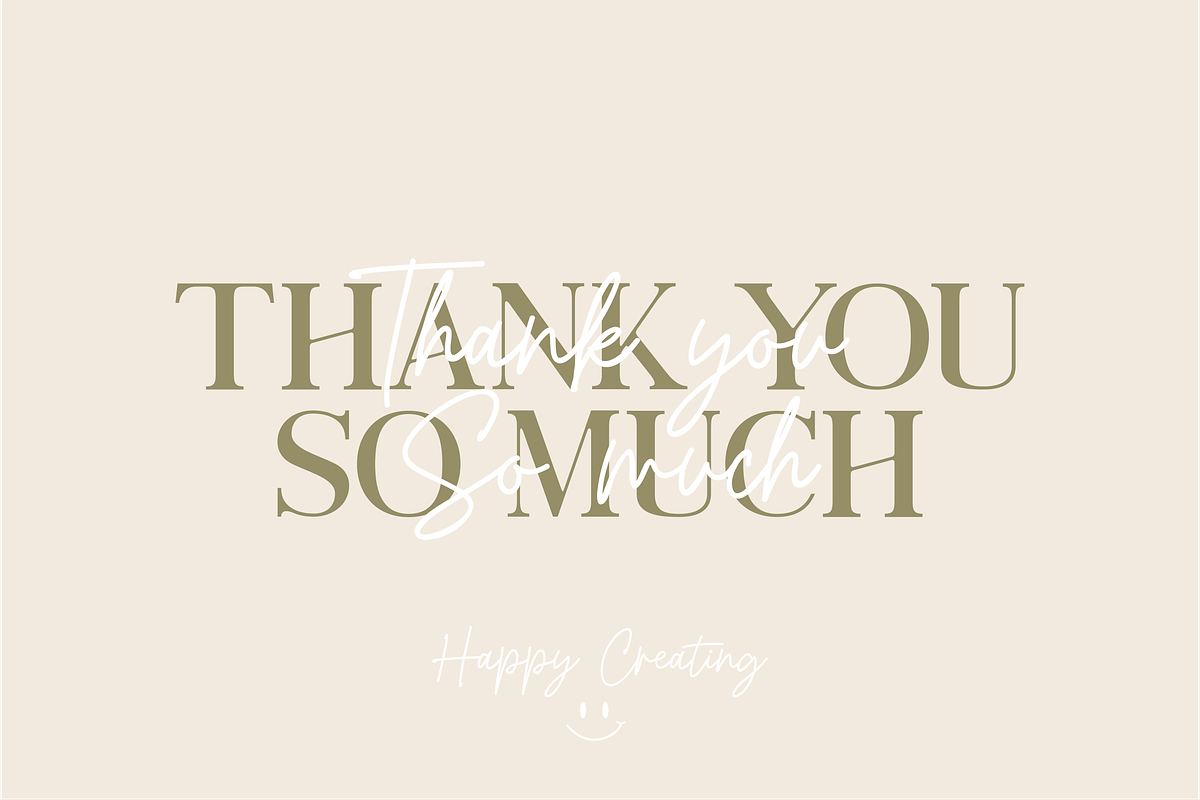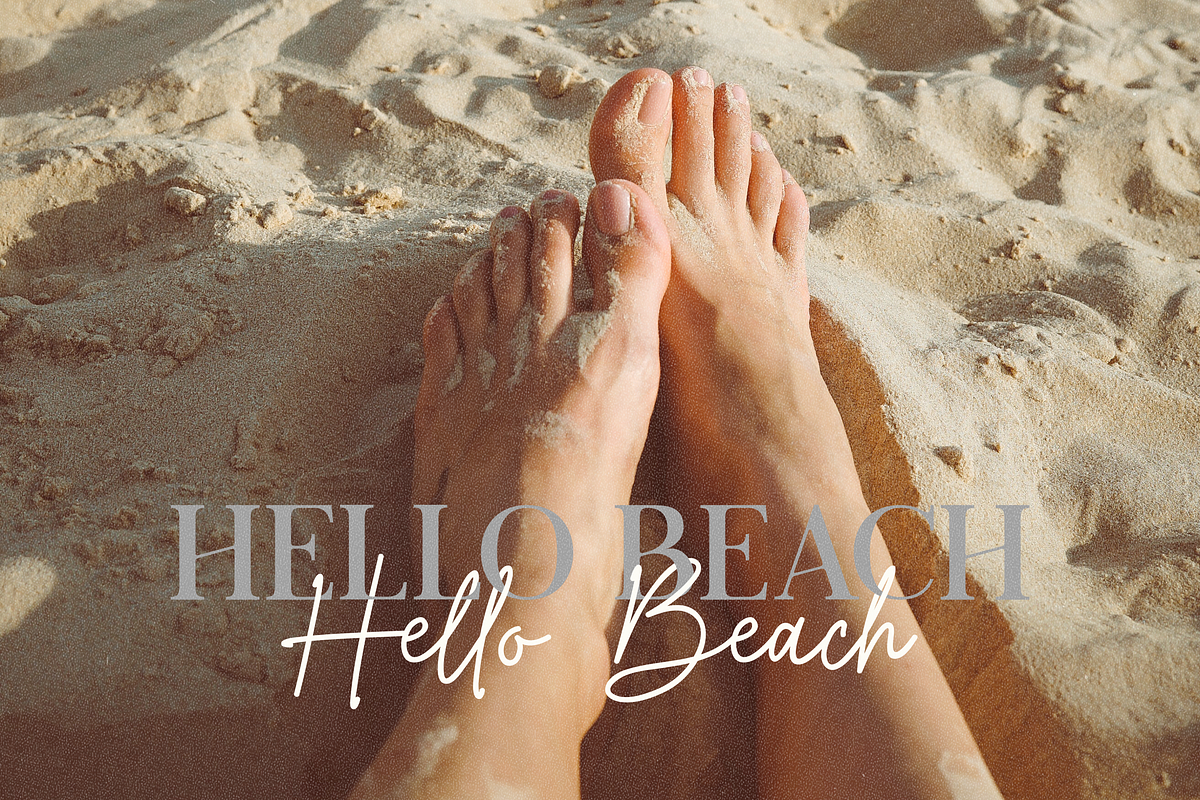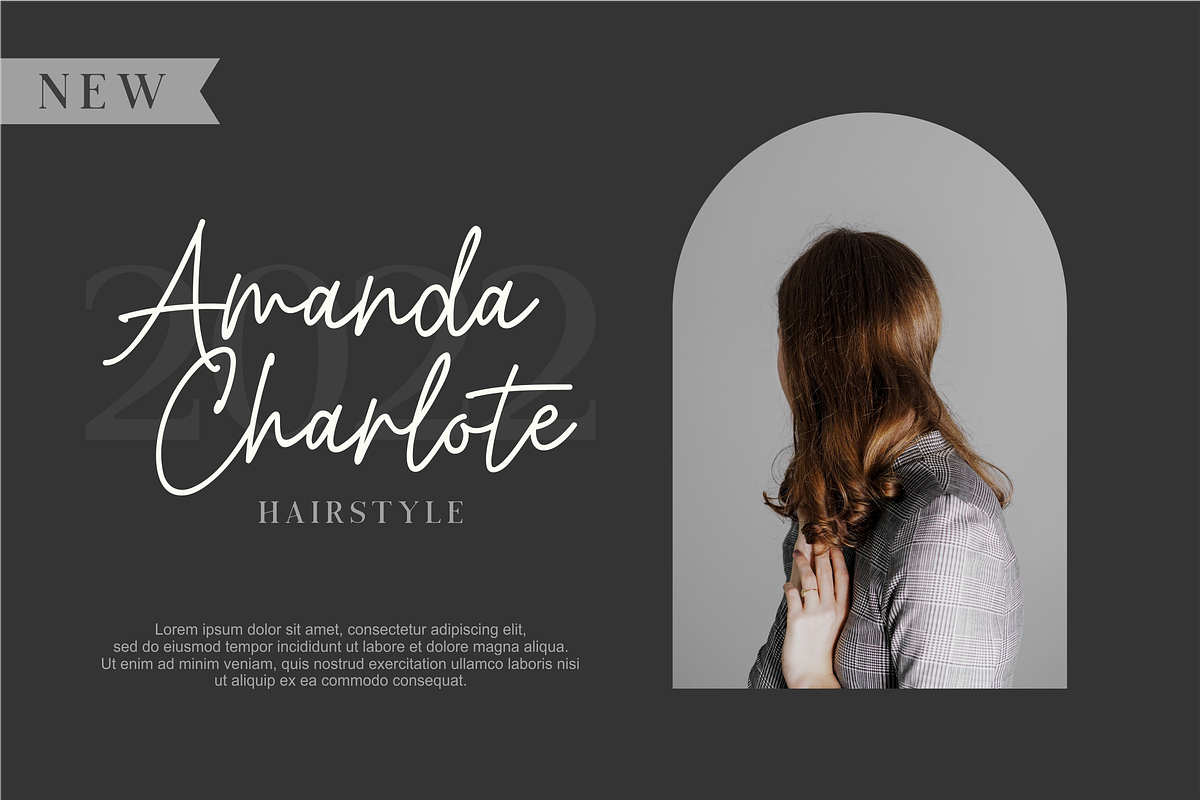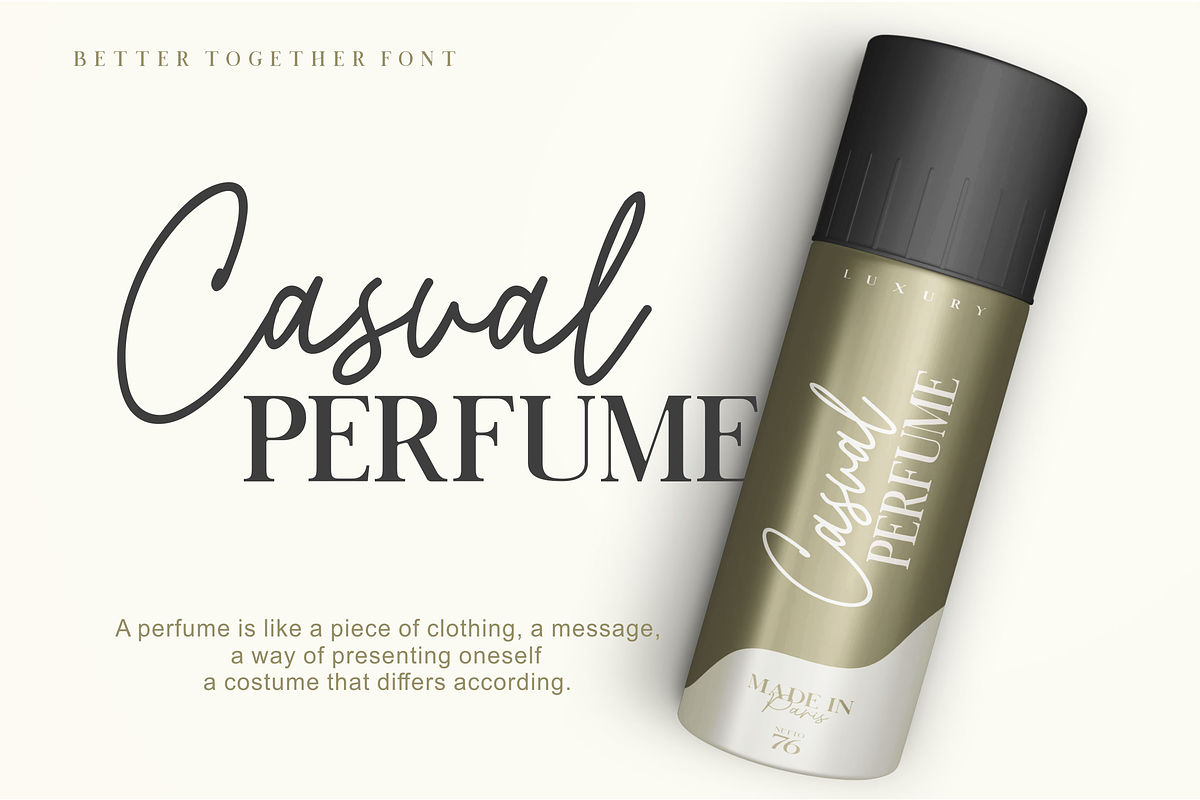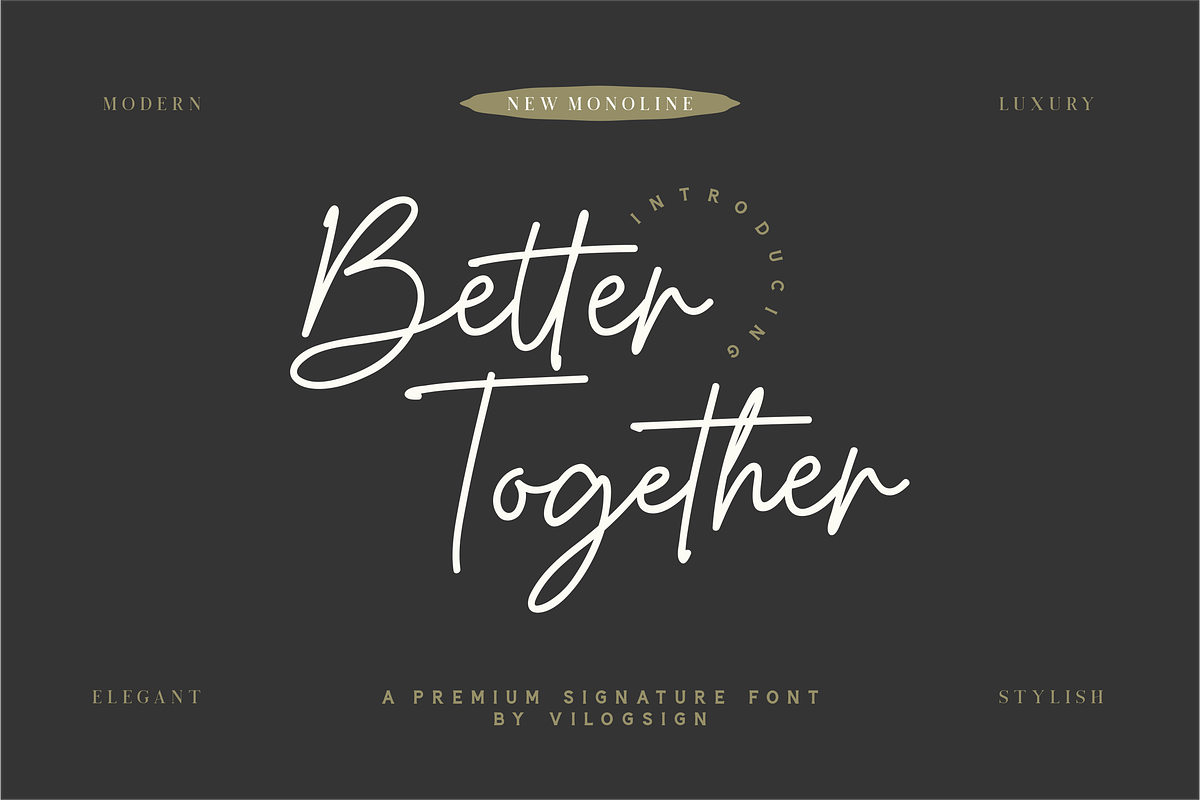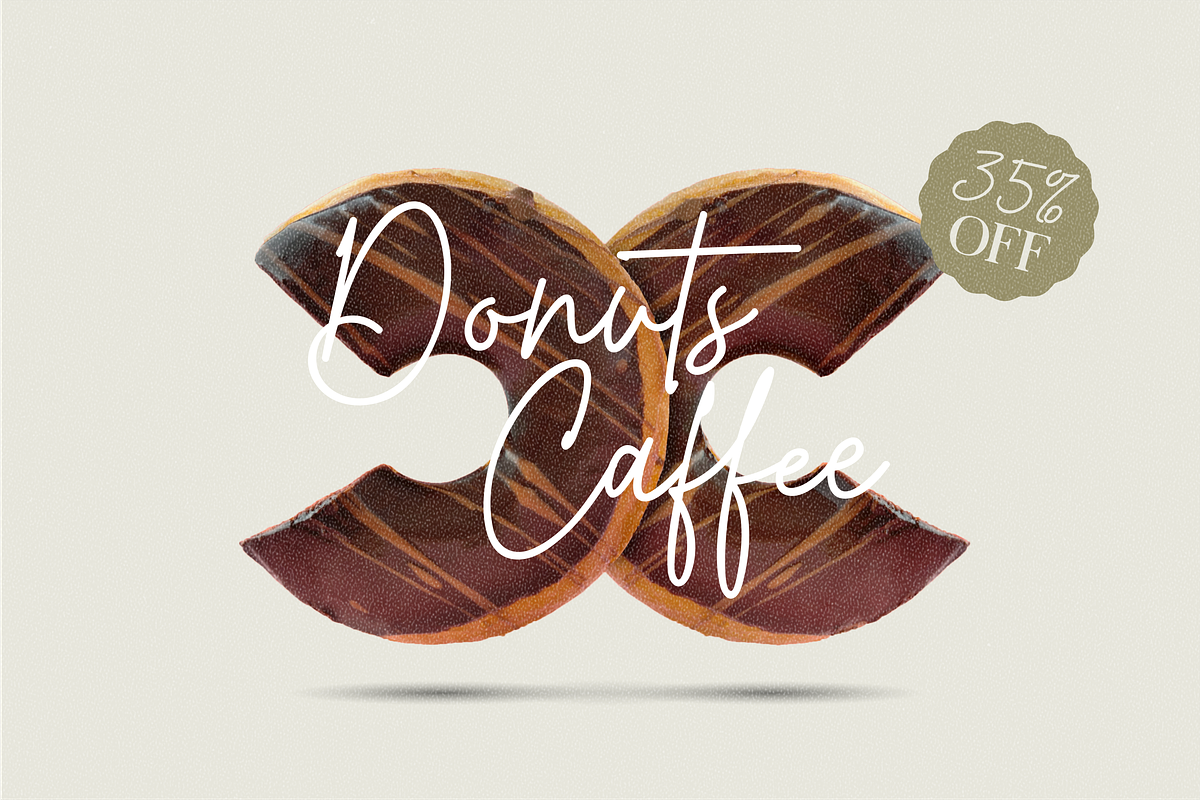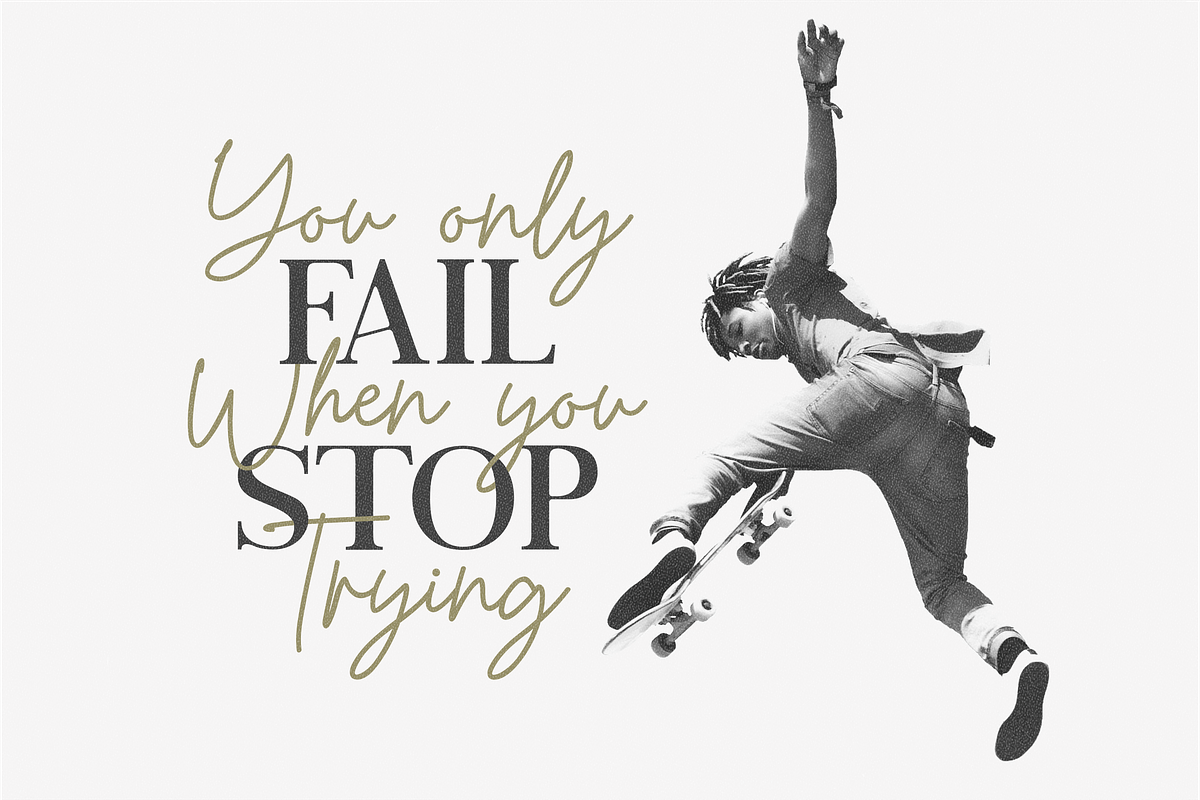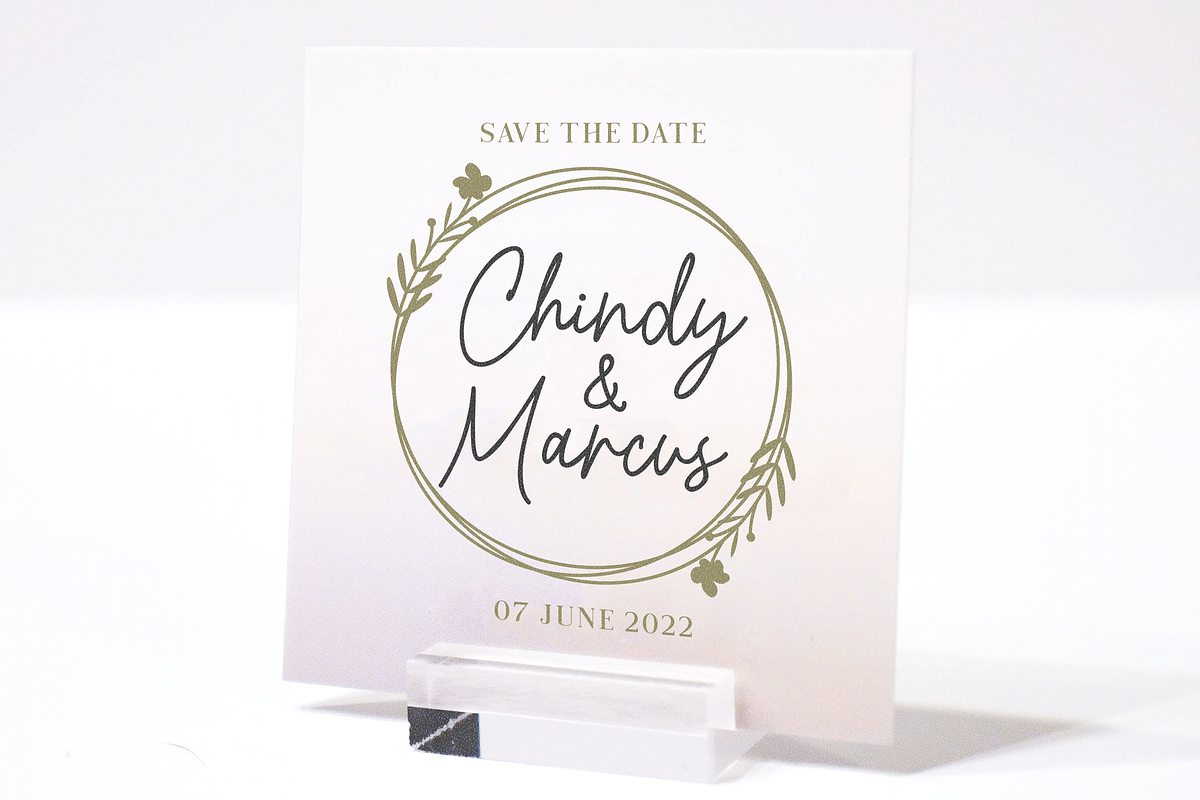
Better Together a Monoline Signature
Hi,,, Introducing "Better Together" a Modern Monoline Script Font!!!
Better Together font is a monoline script with a touch of modern look and feel. This type of font perfectly made to be applied especially in Branding, and the other various formal forms such as invitations, labels, logos, magazines, books, greeting / wedding cards, packaging, fashion, make up, stationery, novels, labels or any type of advertising purpose. This font is very amazing with Arternative, ligature, and multilingual support to complete your need.